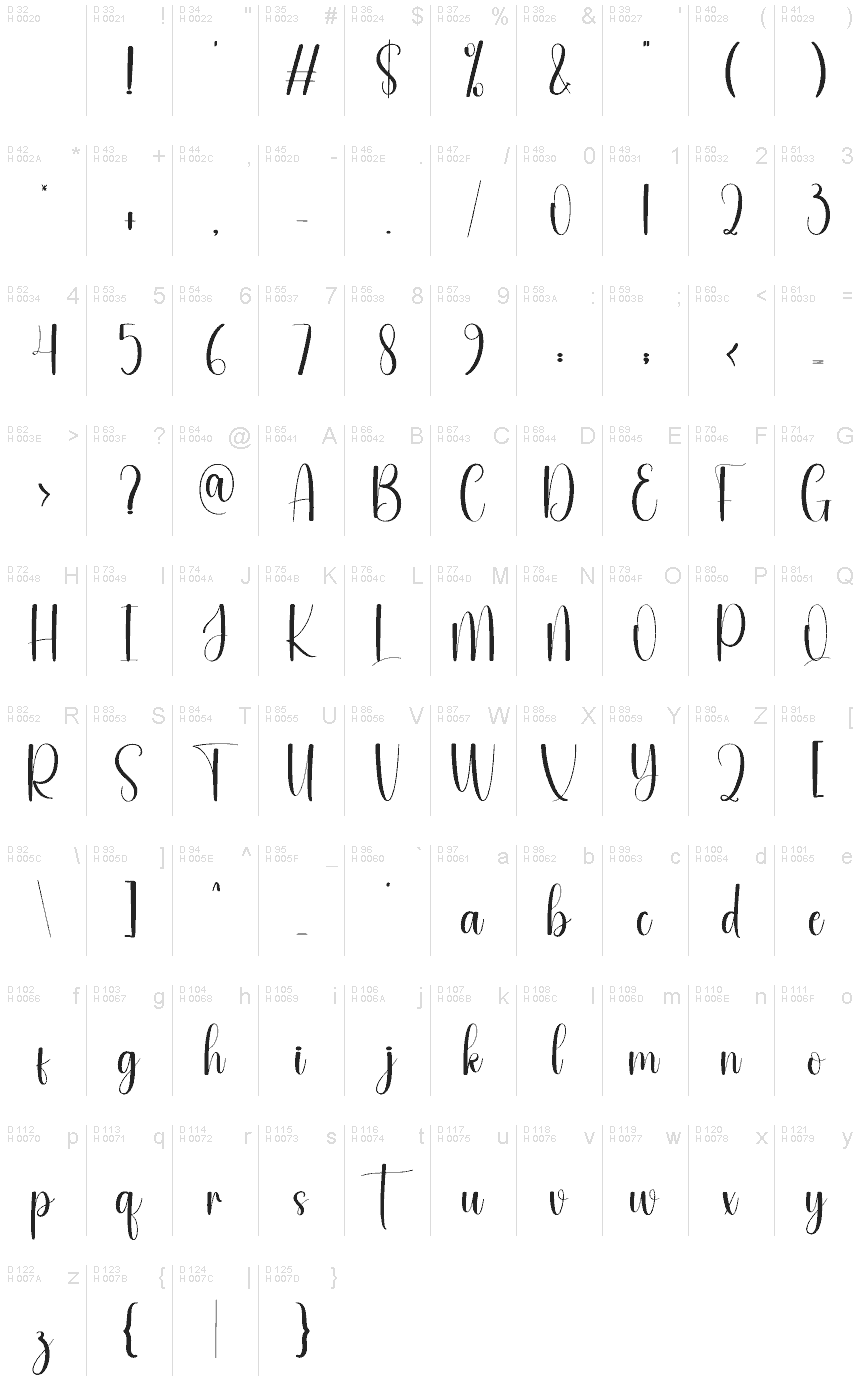
Standby
Standby font by Andi Moz is a free handwritten font that captures the essence of individuality and personality. Its condensed design creates an elegant yet expressive look, flowing naturally with a modern script style. Standby adds decorative flair and artistic charm to every project.